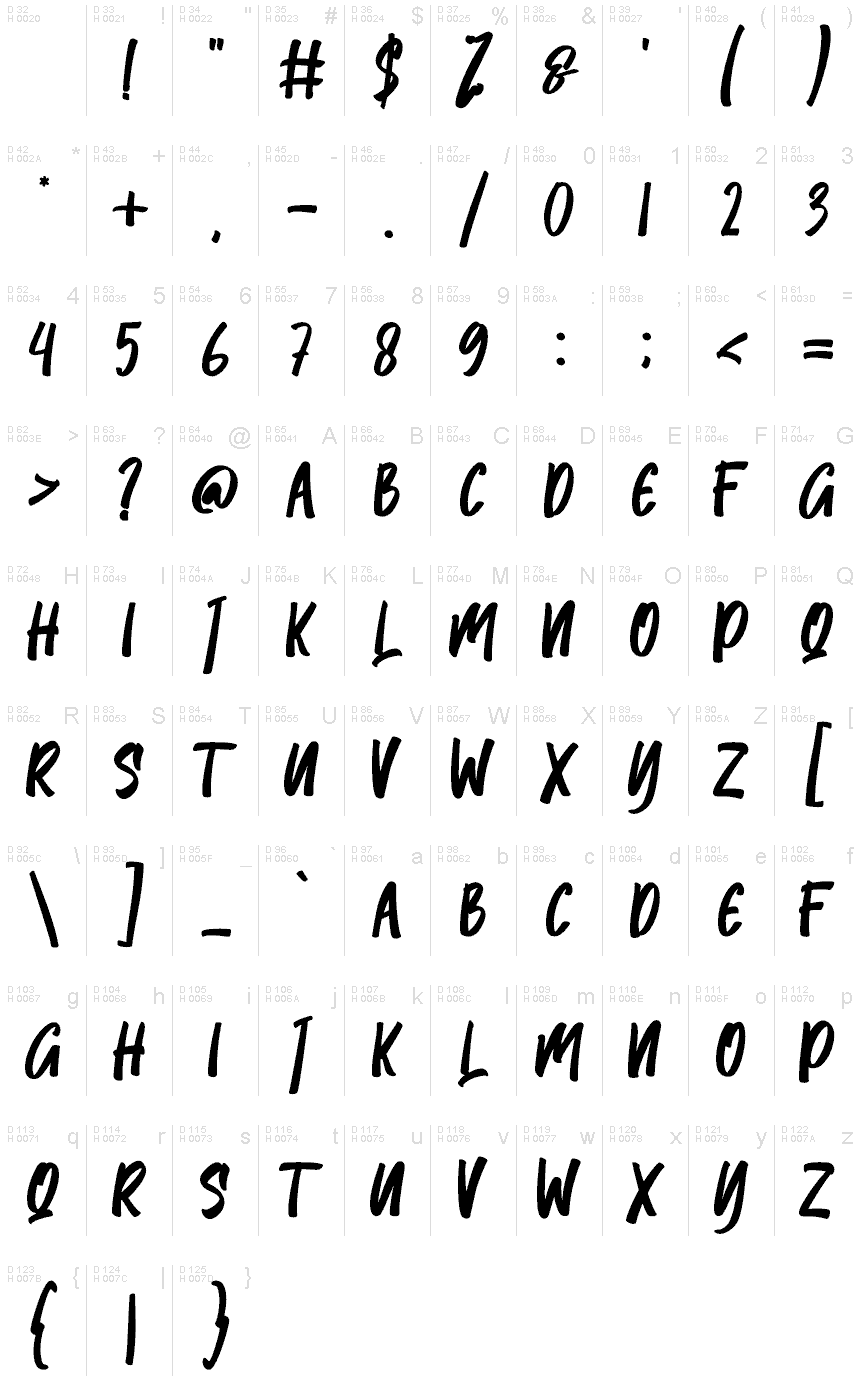
Rosmary
Rosmary font is a condensed brush font by Skiiller Studio with a modern aesthetic, an expressive look, and a casual handwritten style. Its urban style can instantly give your design the bold exciting factor it deserves with clear legible characters and fine details. Each letter has its own visual personality yet they work beautifully when combined into words or phrases.
Use Rosmary for music band covers, comic book covers, movie posters, advertising campaigns, or branding projects like logo designing. Make the best out of this handwriting font for book title designs such as novels or children’s stories and illustrator artworks.